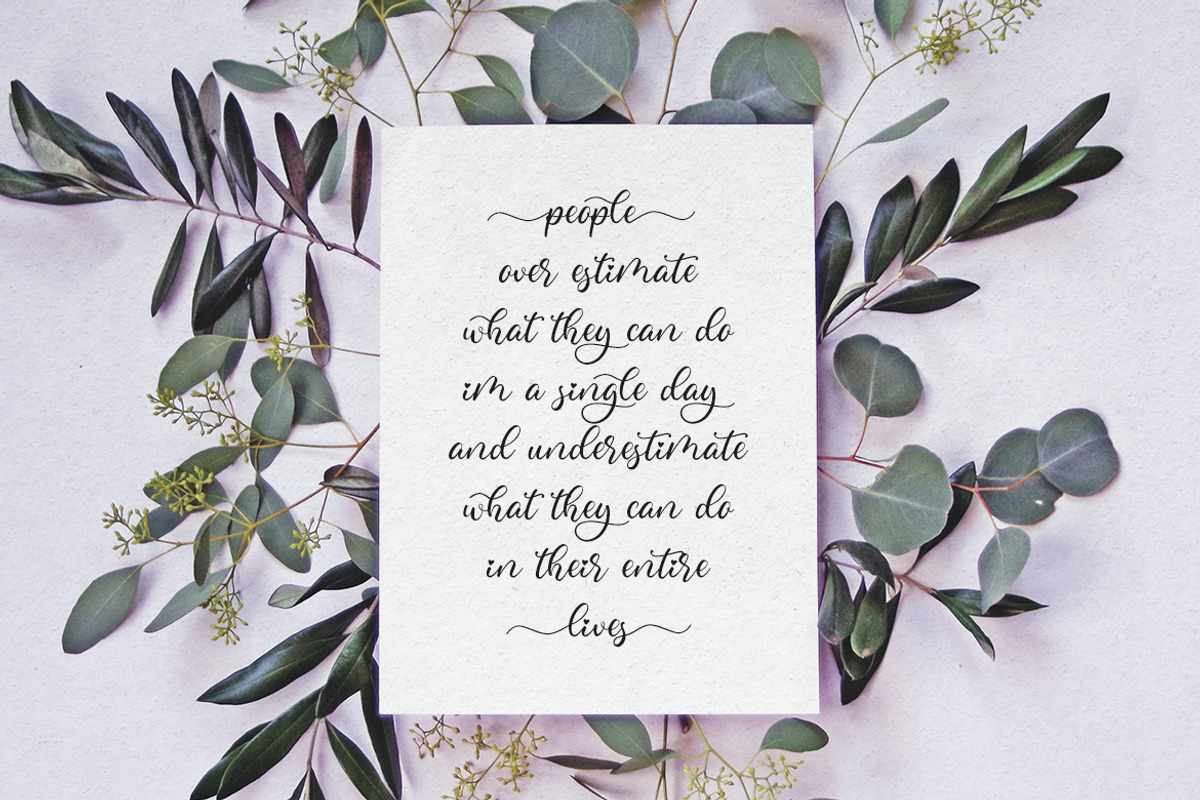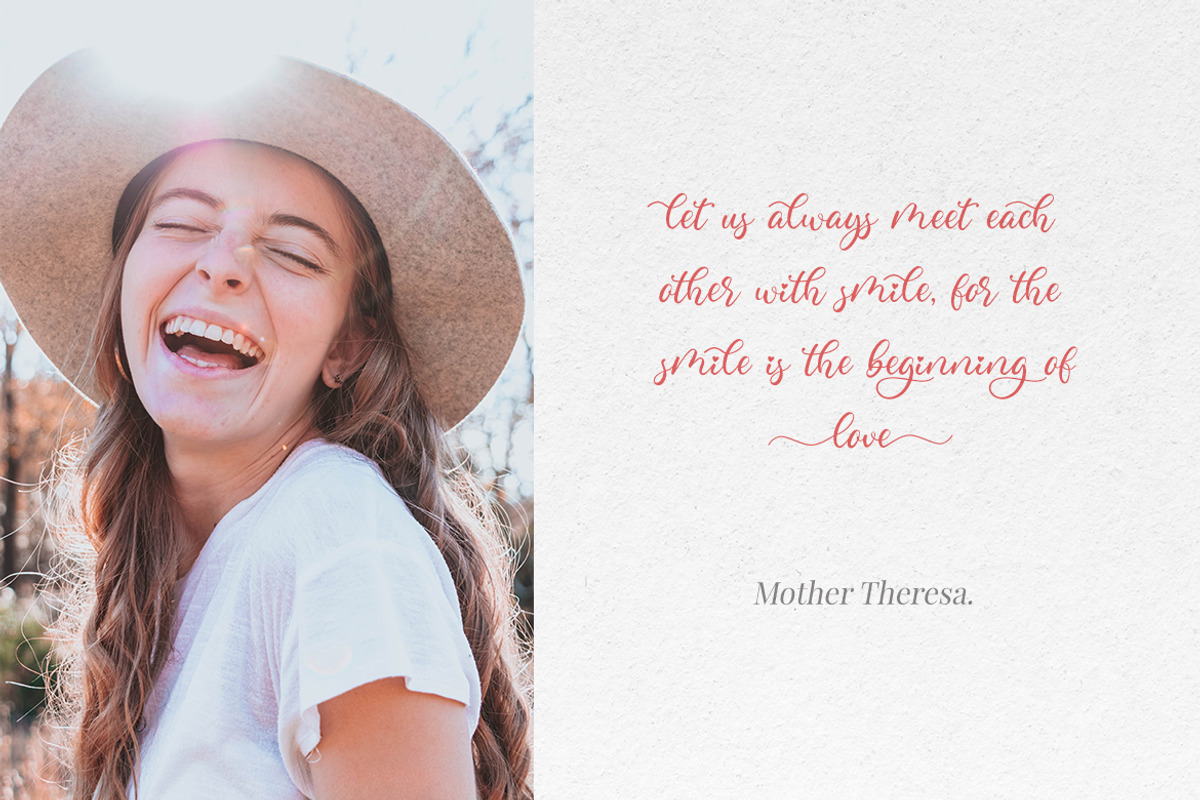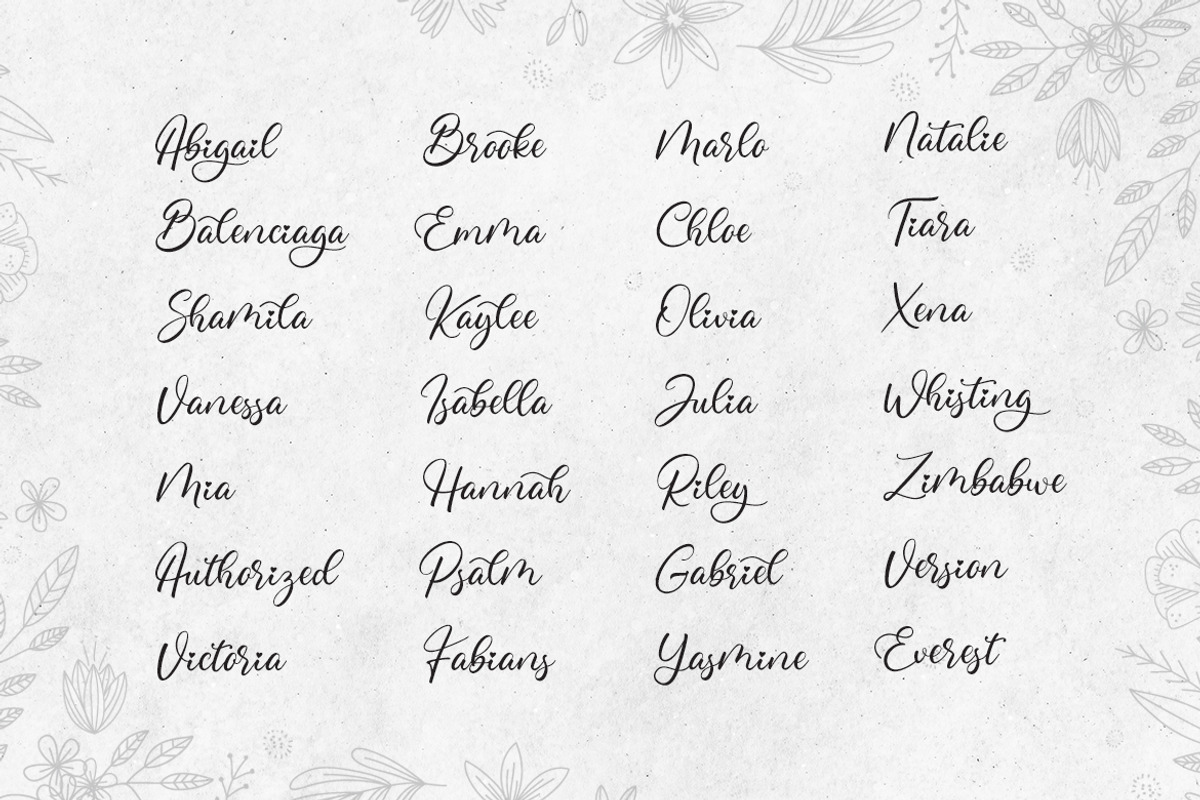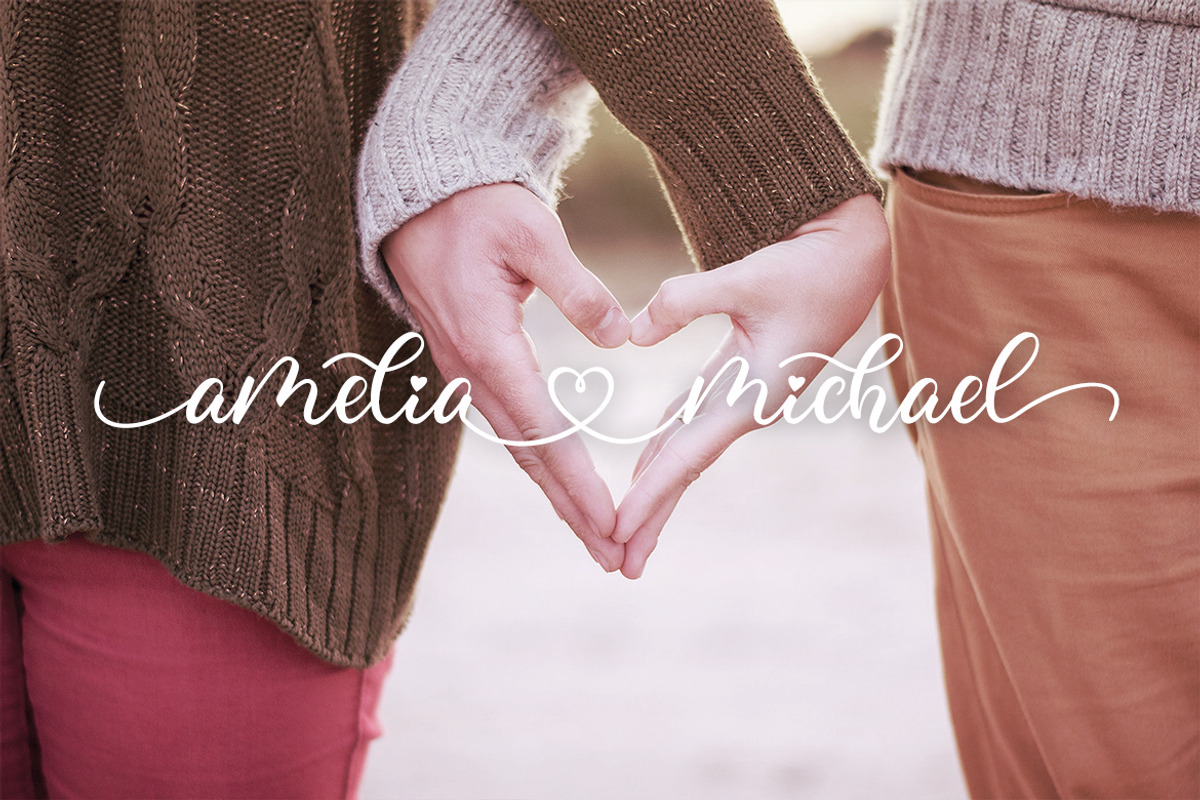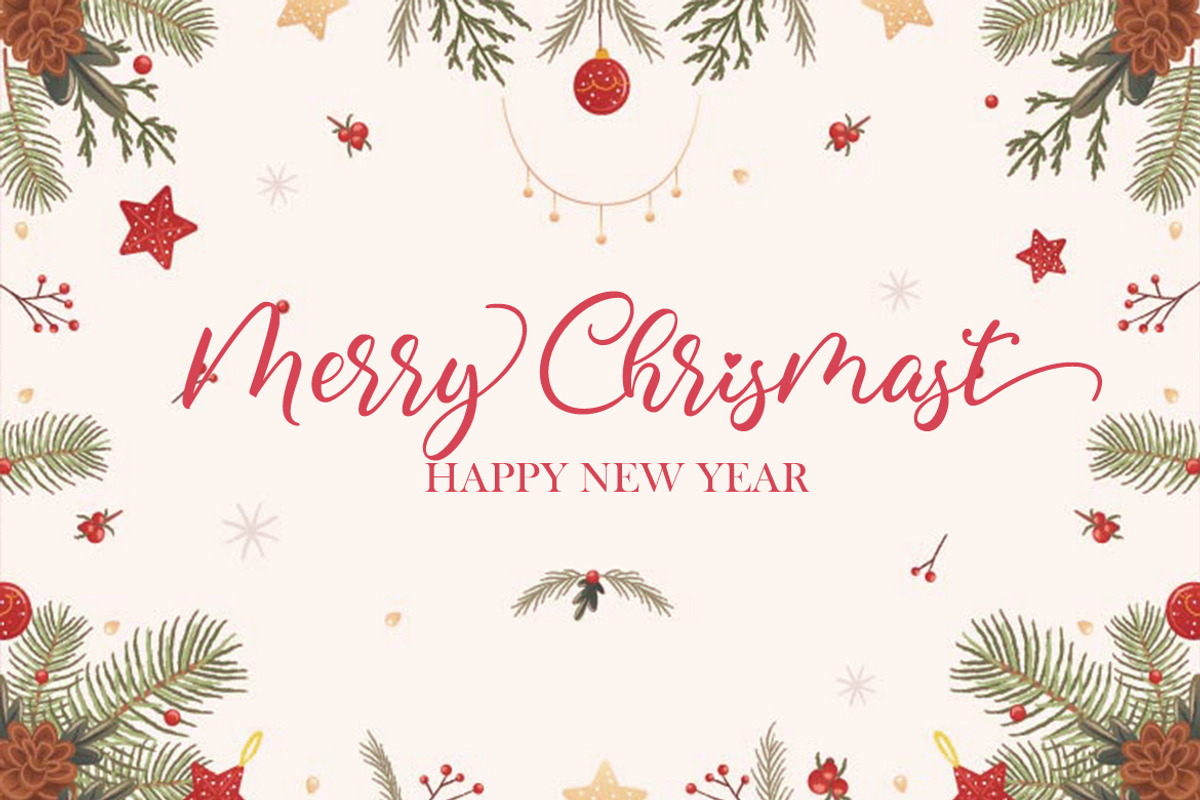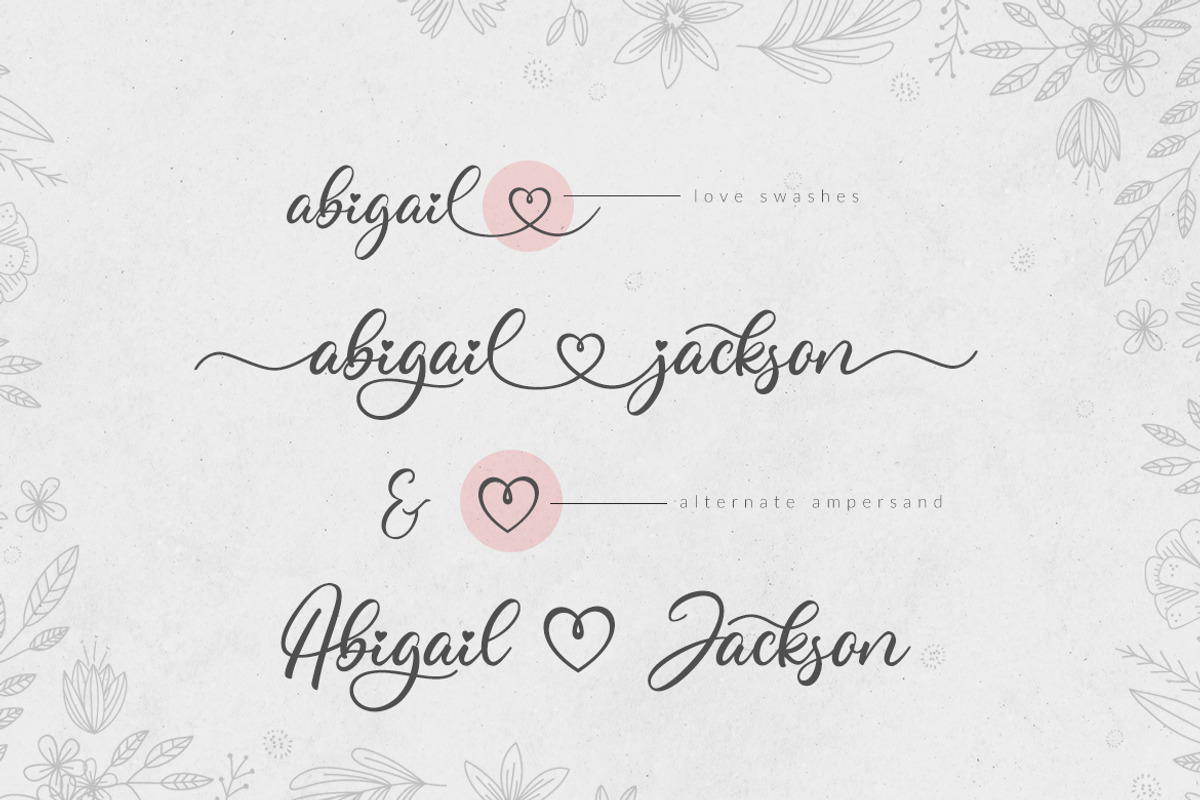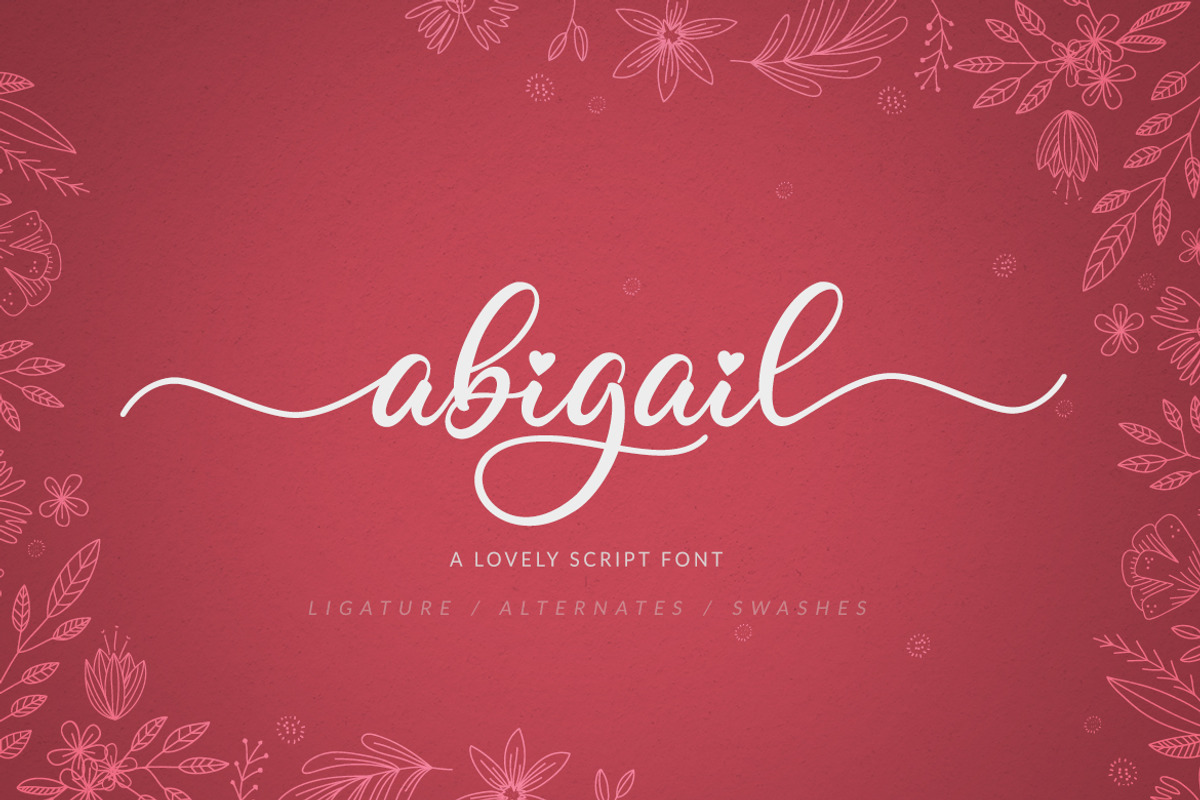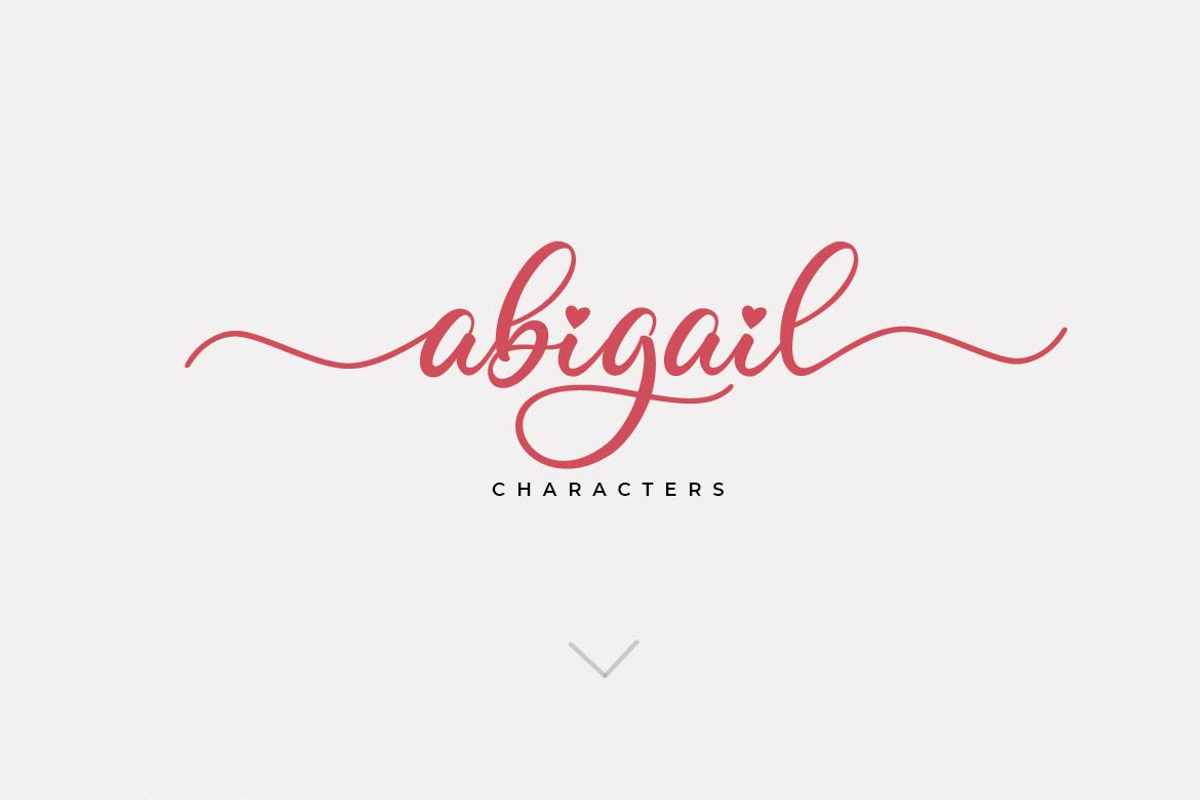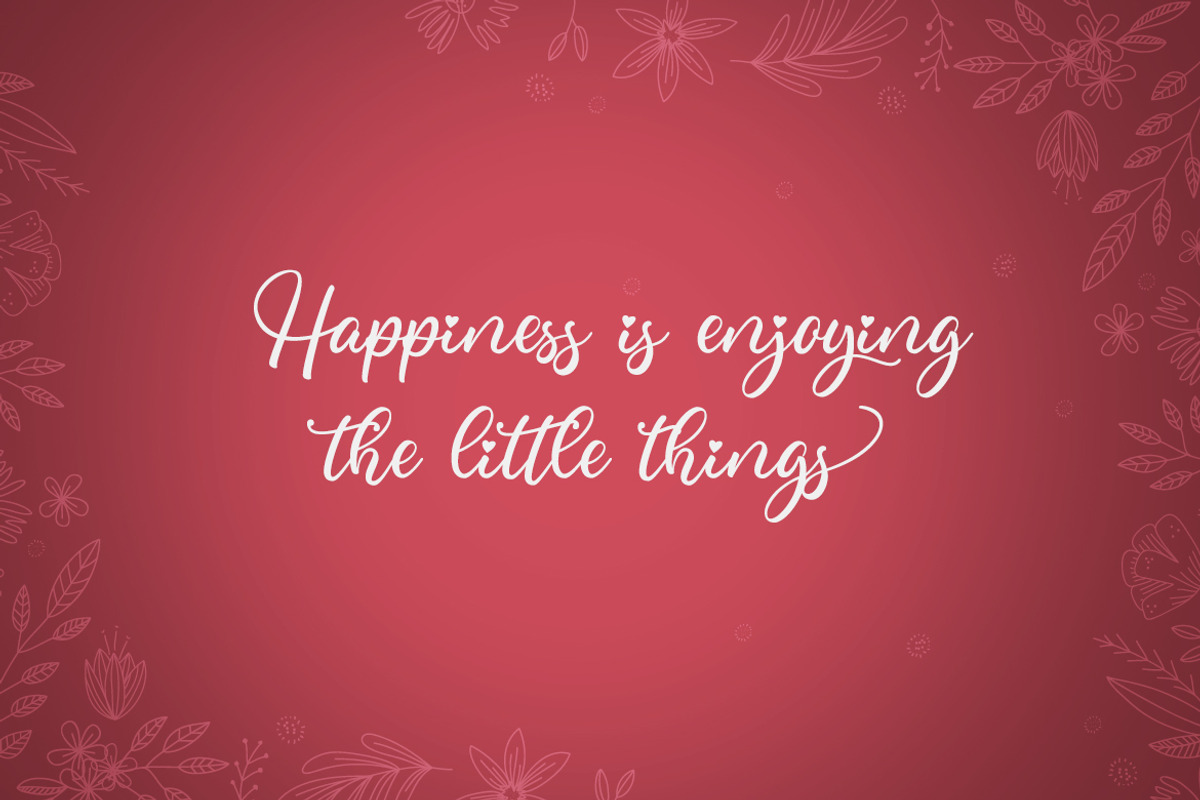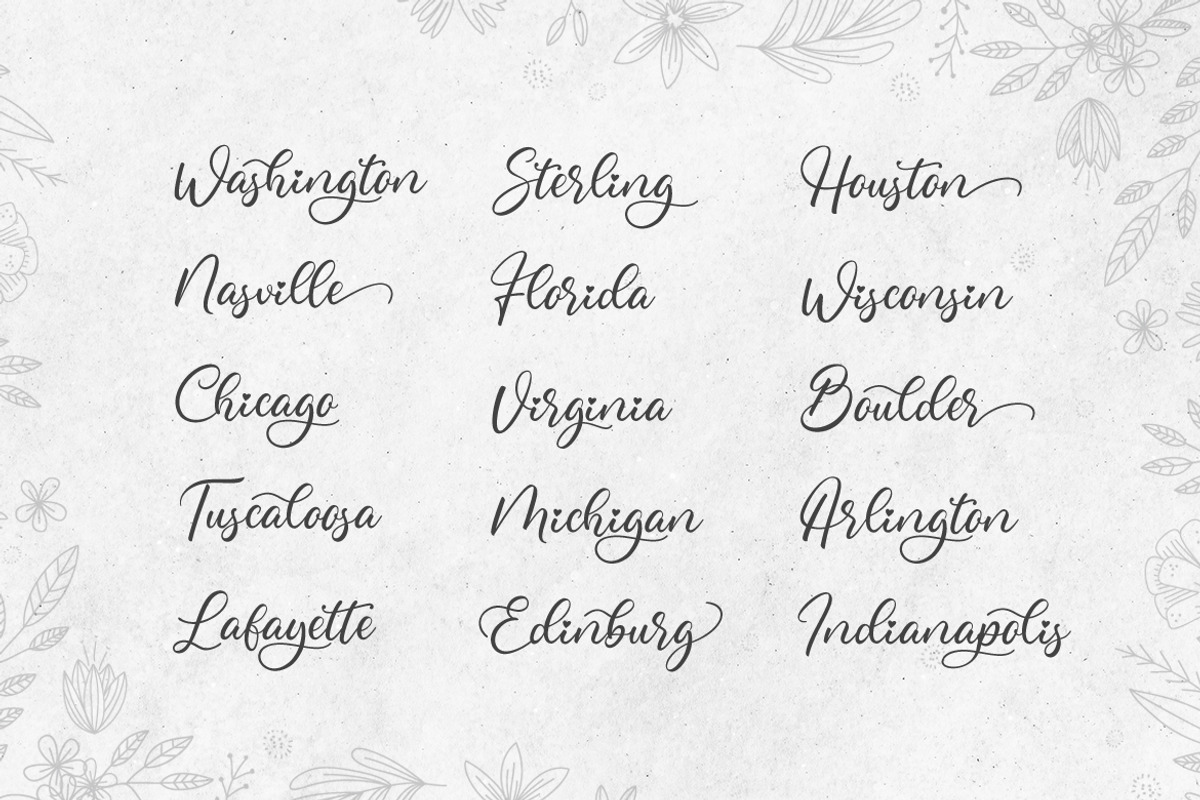
Abigail
Introducing the lovely new Abigail
Abigail was built with OpenType features and includes beginning and ending swashes, heart / love swashes, numbers, punctuation, alternates, ligatures and it also supports other languages :)
Say hello to Abigail - A font that you were meant to find, and is now destined to be with you :) Abigail is a lovingly handwritten script , with an air of grace and flamboyancy.
Abigail is special in that one word can be written in a many different ways - thanks to the large selection of extra letters that it has built in. To access all the extra characters , Opentype capable software is recommended - most apps support Opentype features now days.